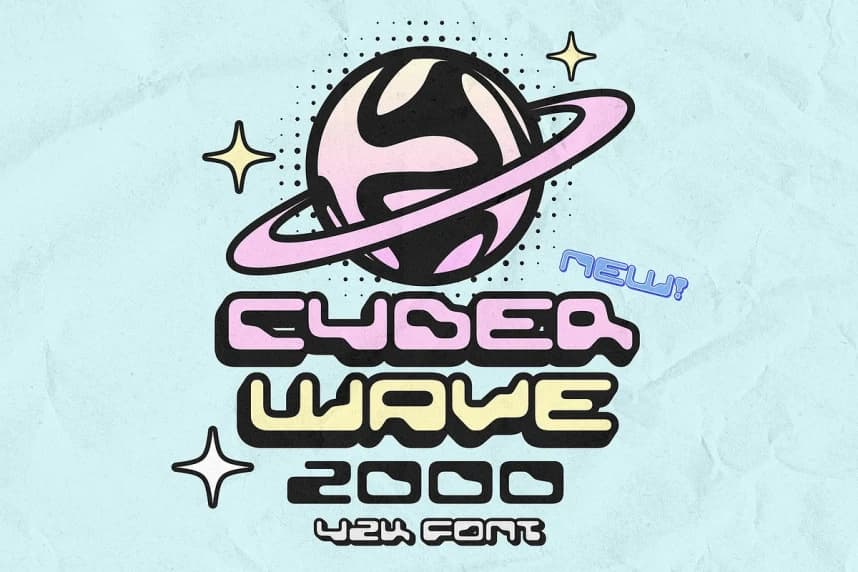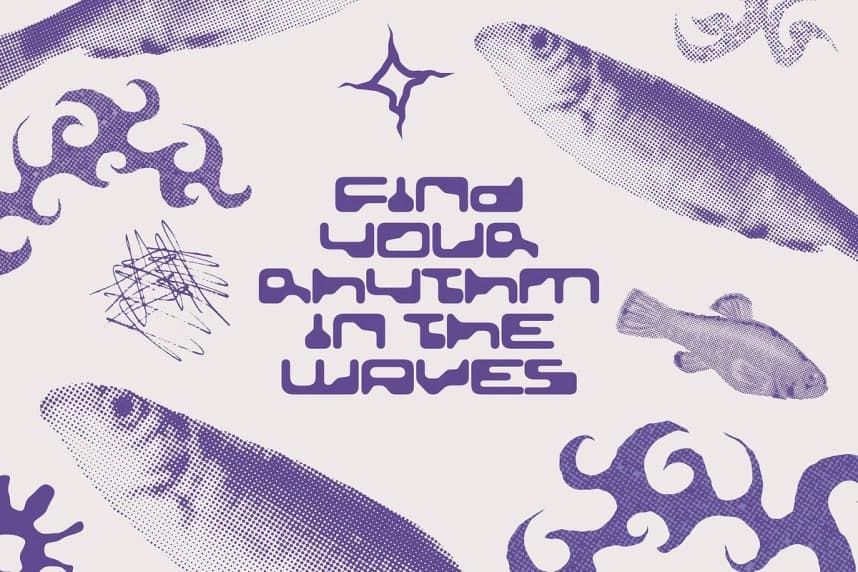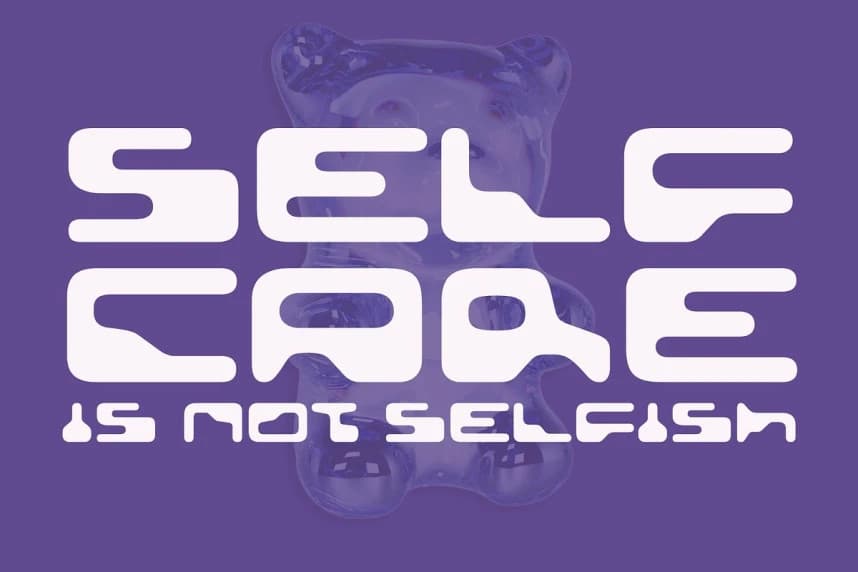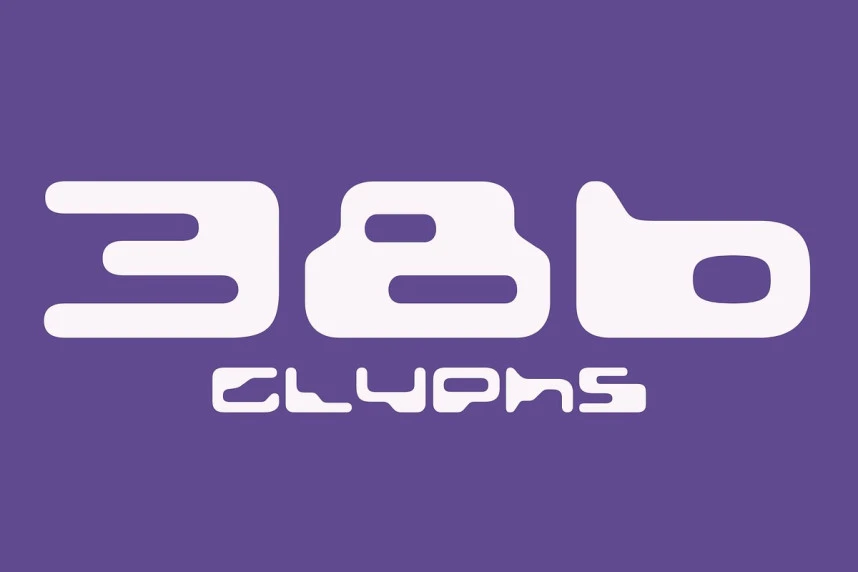
Cyberwave 2000 Font
Cyberwave 2000 Font, a bold Y2K-inspired typeface that captures the glitchcore glamour, chrome-coated aesthetics, and futuristic optimism of the early internet era. This font oozes turn-of-the-millennium attitude with sleek curves, synthetic edges, and a distinctly cyber-pop personality.
Cyberwave 2000